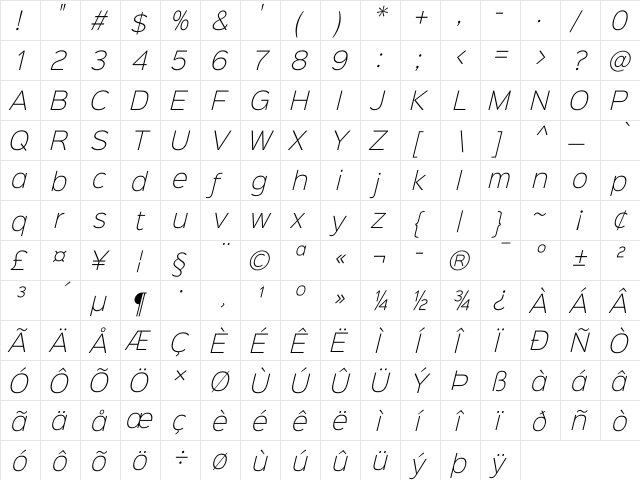
Sinkin Sans 200 X Light Italic Regular Font Preview
| Copyright | Sinkin Sans 200 X Light Italic by Keith Bates 014 https://www.k-type.com Sinkin Sans is a simple, pleasantly proportioned sans serif with tiny, inconspicuous notches that sink into vertical strokes adding highlights to congested corners. |
Design Context for Sinkin Sans 200 X Light Italic Typeface
Sinkin Sans 200 X Light Italic takes a measured approach to typography — its balanced proportions and neutral character make it a reliable workhorse for both digital and print work. Its italic angle brings a sense of urgency and motion to the letterforms. Its slender proportions lend an understated elegance to any composition.